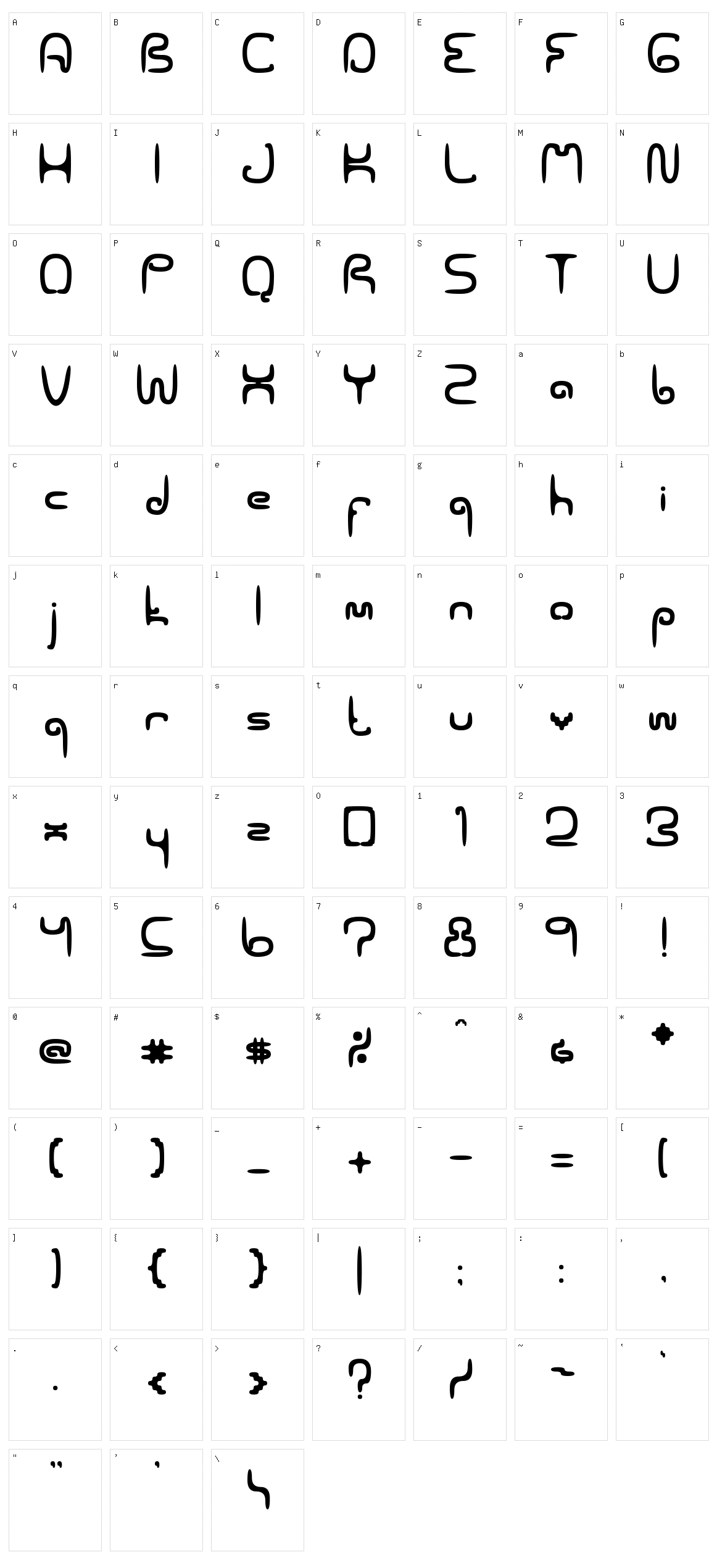
Spaceworm 02
Designed by: The Space Wanderer
By Eric Wiryanata. November 2006.
this is a second version of SpaceWorm a font i was made. with a lil bit wormy look.
Note#2: This typeface is ideal for logos and general design.
It isn't very suitable to be used with word-processors as it lacks some symbols and letters.